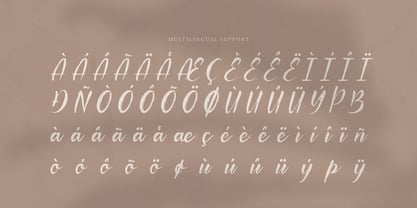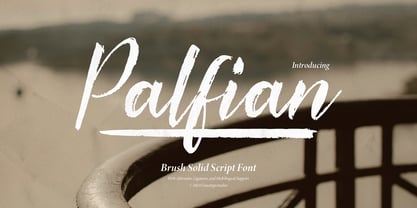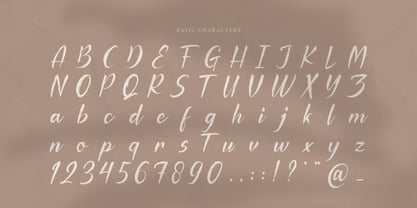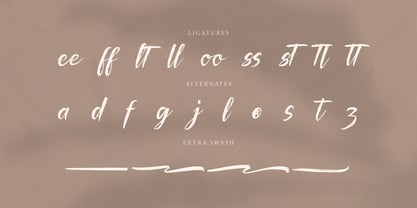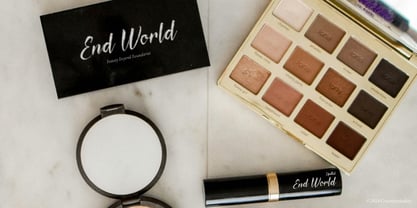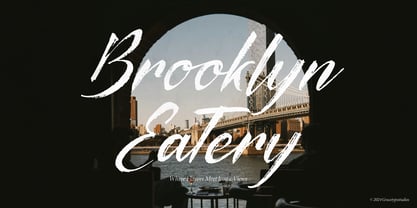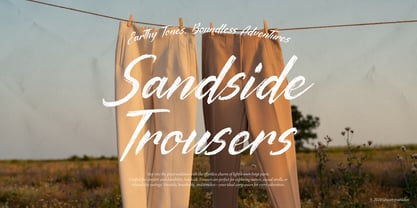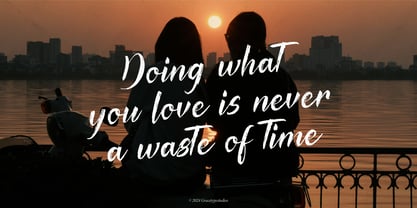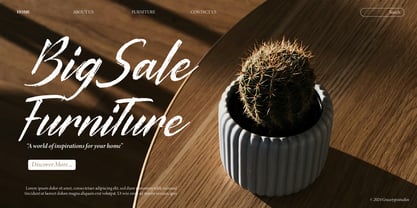
Palfian
by Tini Fitriani
The Palfian Font Family was designed by and published by Tini Fitriani. Palfian contains 2 styles and family package options. More about this family
Palfian | Brush Solid Script, from Gracetypestudio, suitable for any projects such as: logos, branding projects, homeware designs, product packaging, mugs, quotes, posters, shopping bags, t-shirts, book covers, name card, invitation cards, greeting cards, label, photography, watermark, special events, and all your other lovely projects that need a Brush Solid Script taste.
• Regular and Italic
• Standard glyphs
• Alternate and Ligature
• Fonts include multilingual support